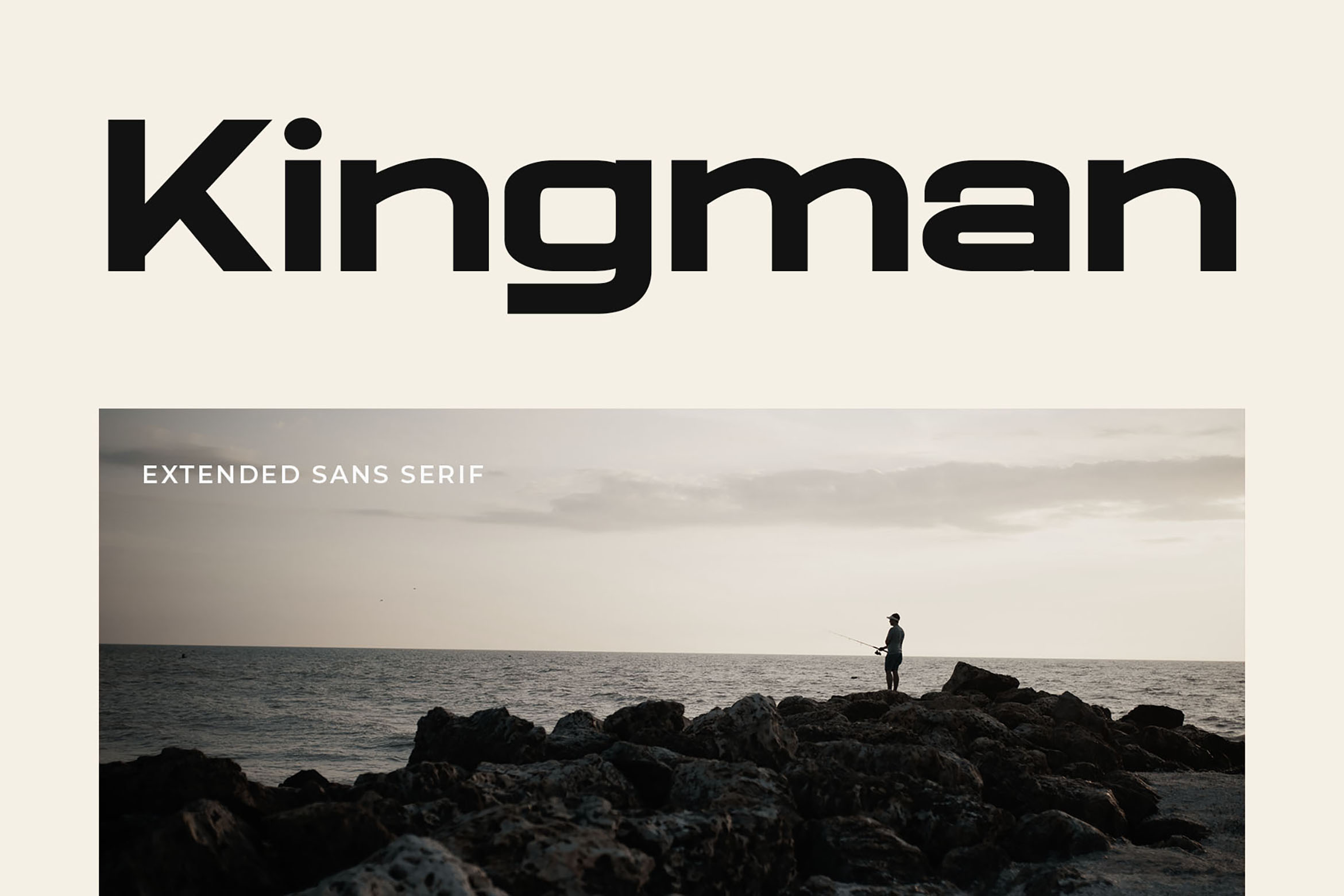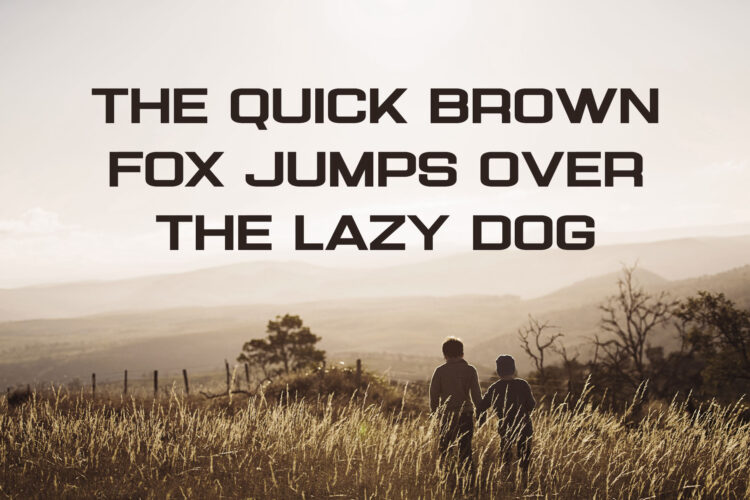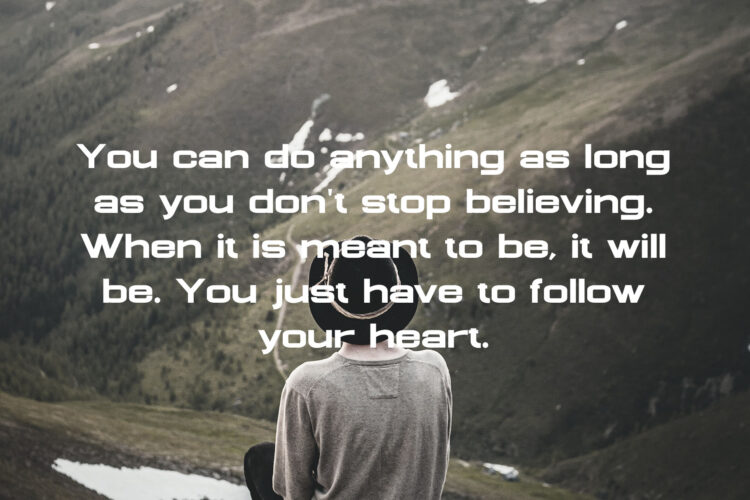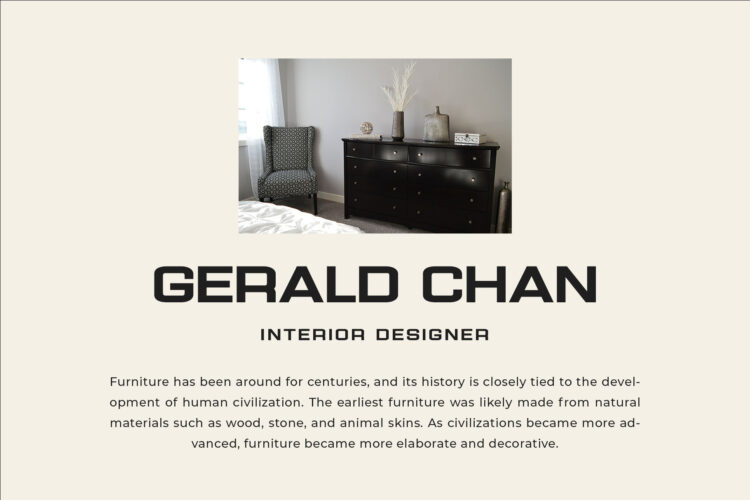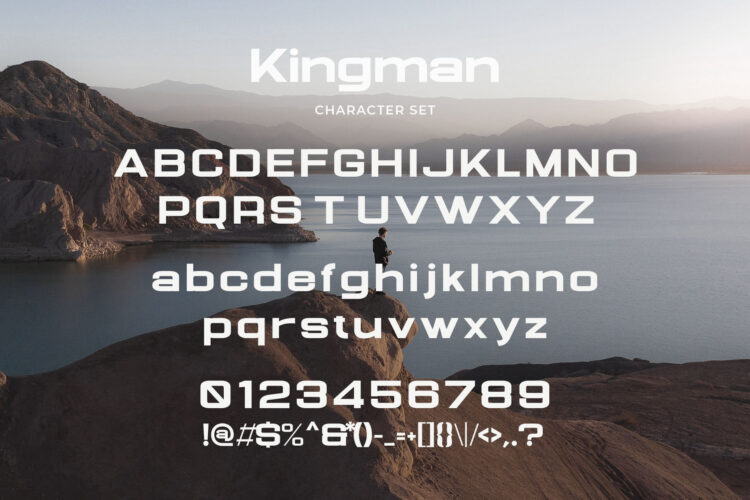
Introducing our new Kingman, modern sans serif font with elegant style this is perfect for branding, logos, invitation, magazines, product packaging and more.
Kingman – Extended Sans Serif